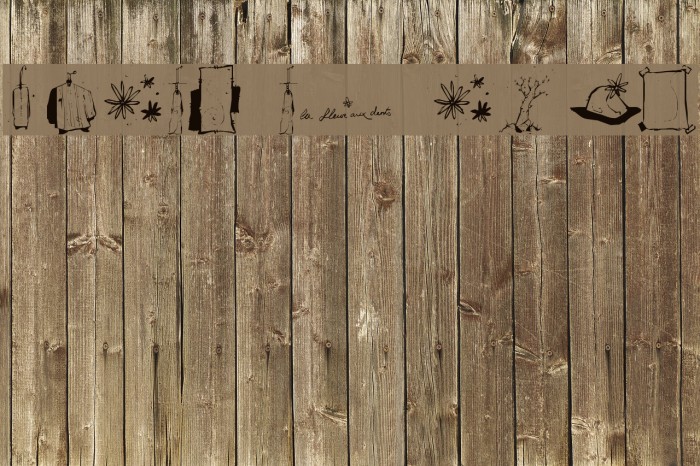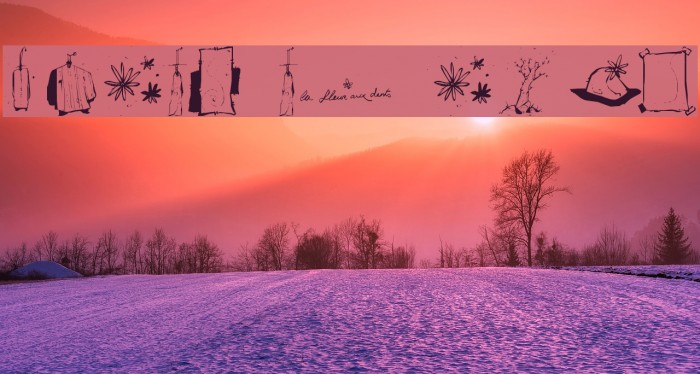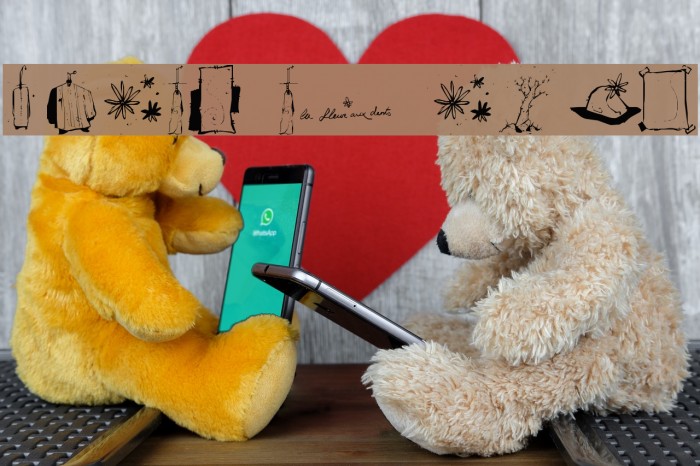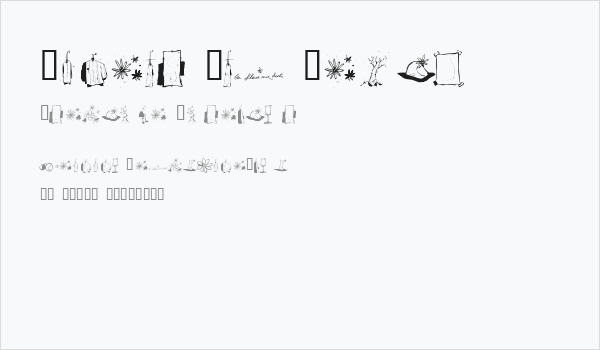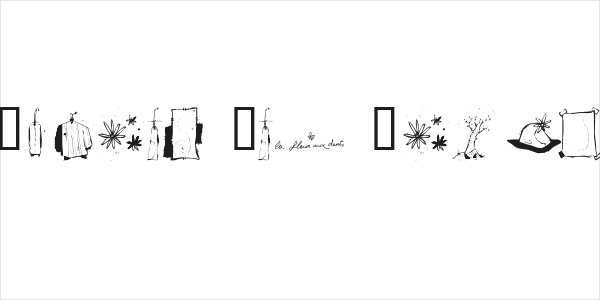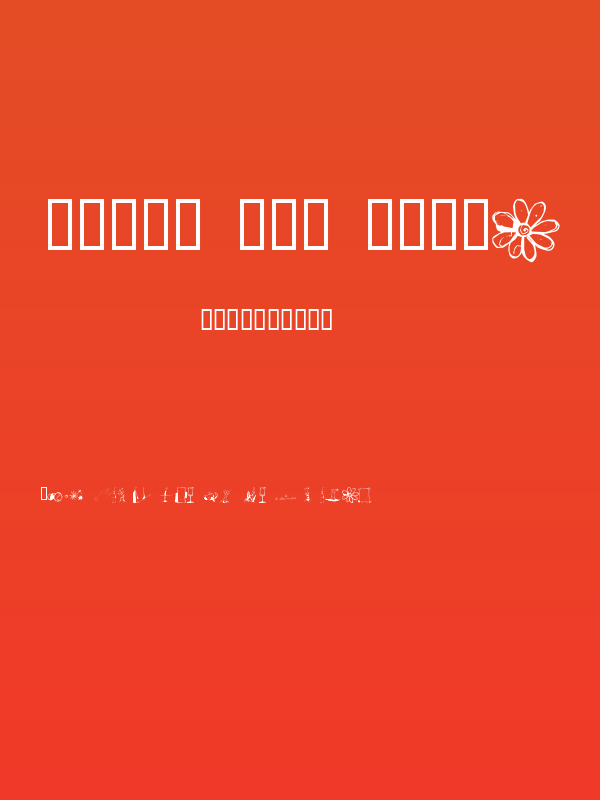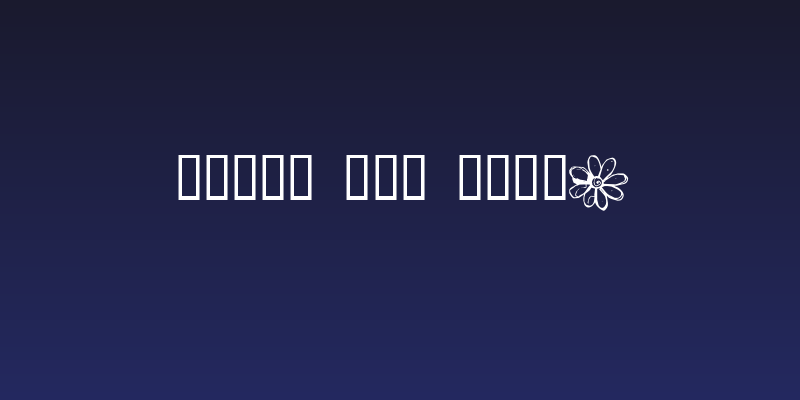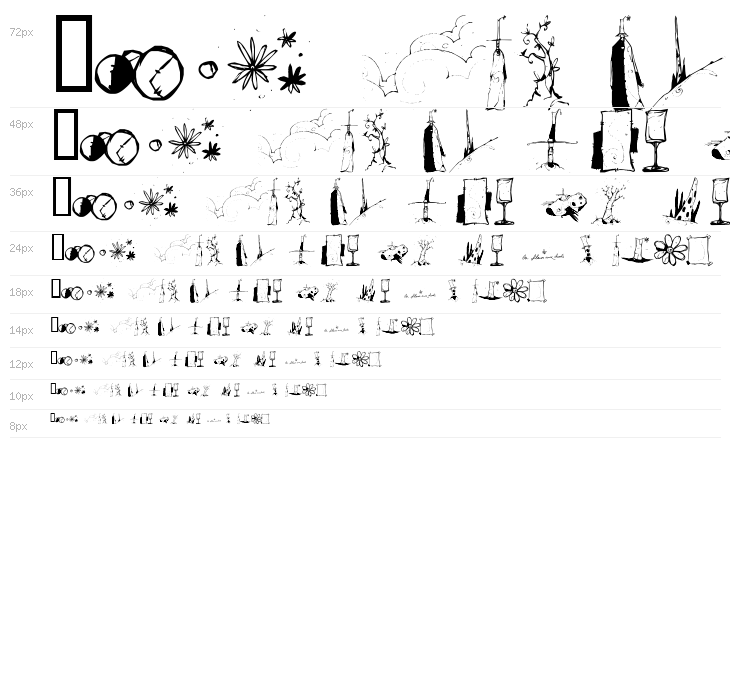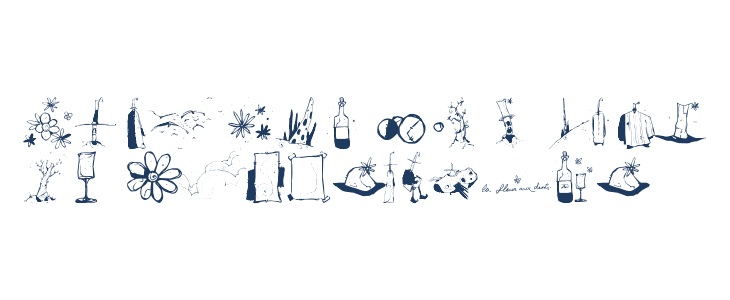
Fleur Aux Dents Font
Fleur Aux Dents Description
This font is a whimsical and artistic collection of hand-drawn illustrations rather than traditional alphanumeric characters. Each character is represented by a unique sketch, featuring elements like flowers, bottles, and abstract shapes. The style is playful and imaginative, with a strong emphasis on creativity and visual storytelling. The illustrations are detailed and convey a sense of spontaneity and artistic flair, making it suitable for projects that require a touch of originality and artistic expression.
| Overall Style | Artistic, Whimsical |
| Use Case | Logos, Artistic projects, Decorative purposes |
| Proposed Projects | Ideal for creative projects such as greeting cards, artistic posters, or branding materials that require a unique, illustrative touch. |